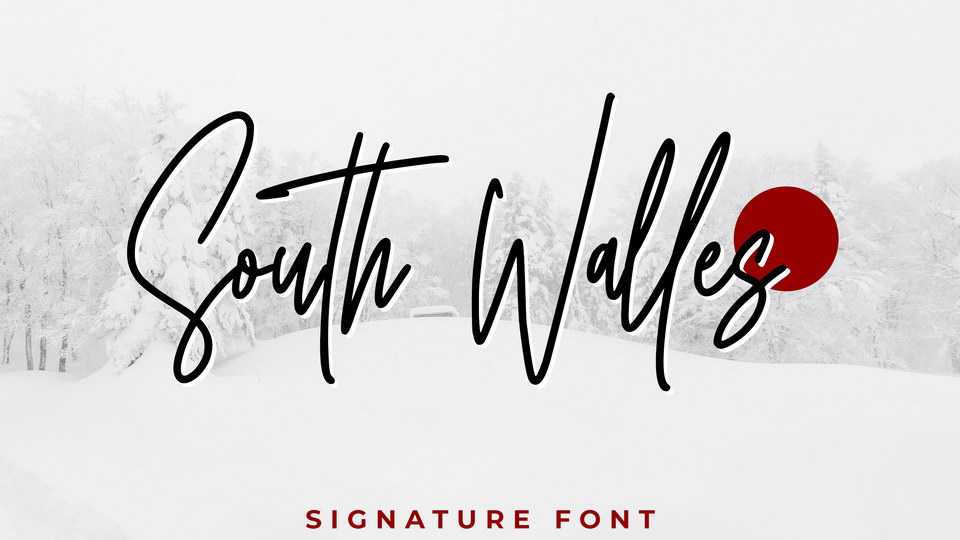
Download South Walles font, a stylish signature script created from natural handwritting to make your design more beautiful. South Walles script is perfect for personal branding, watermarks, notes, quotes, social media and more.